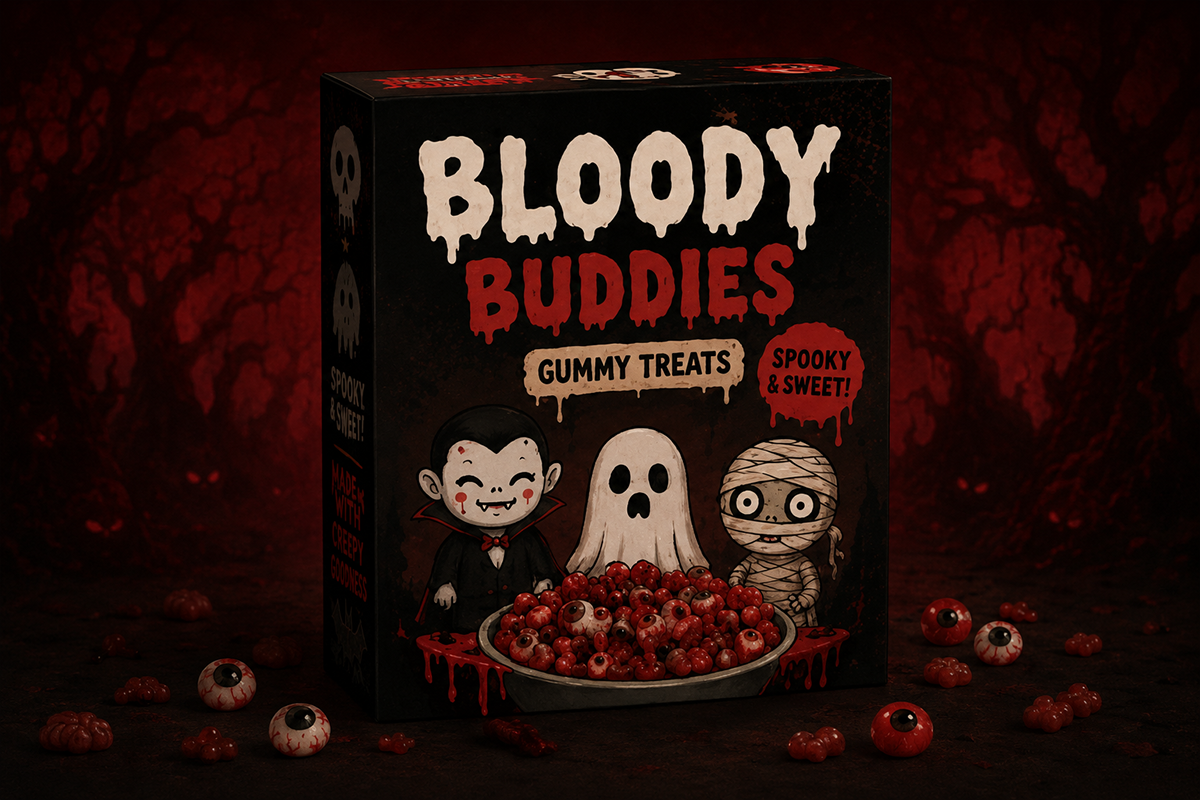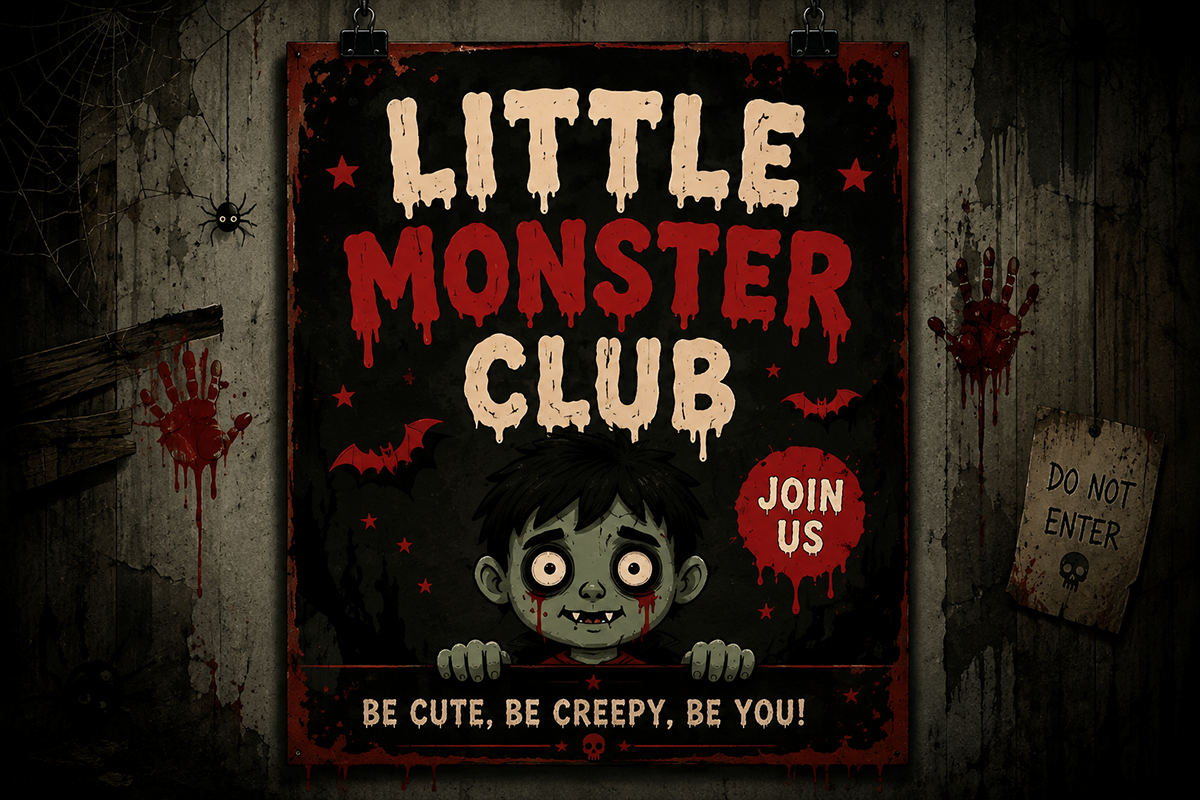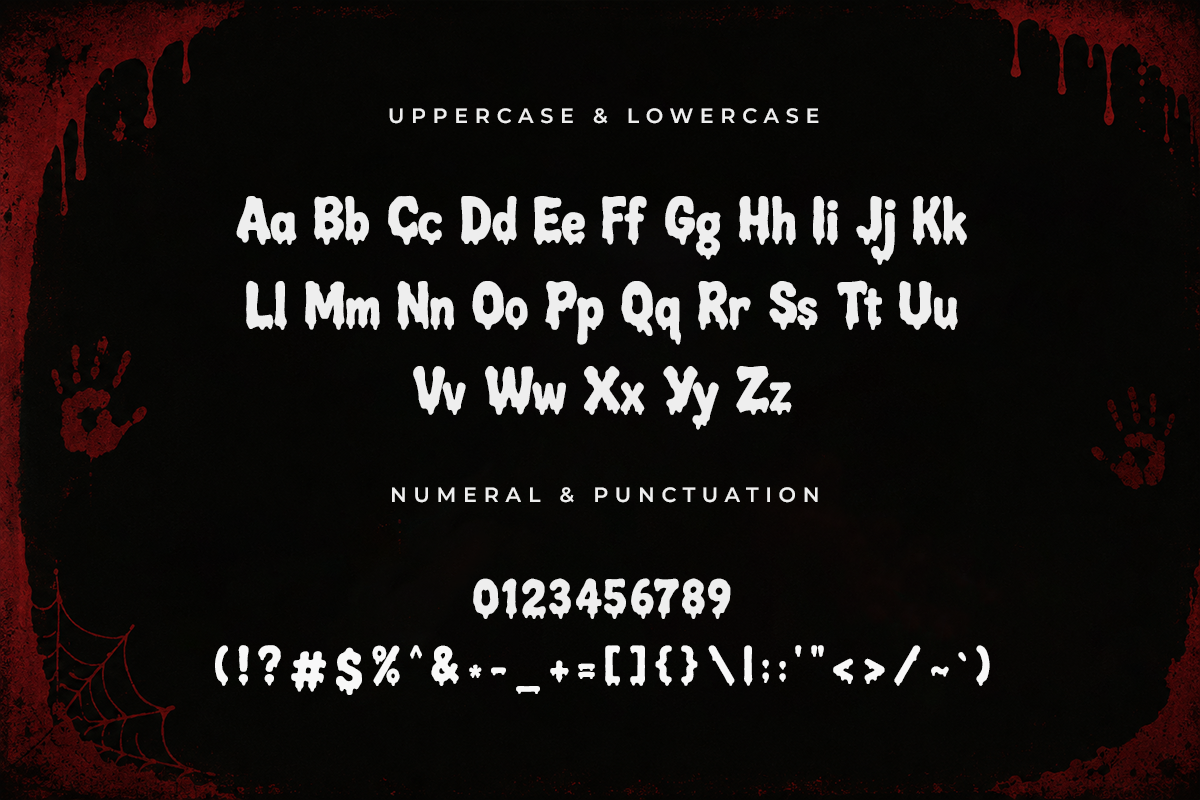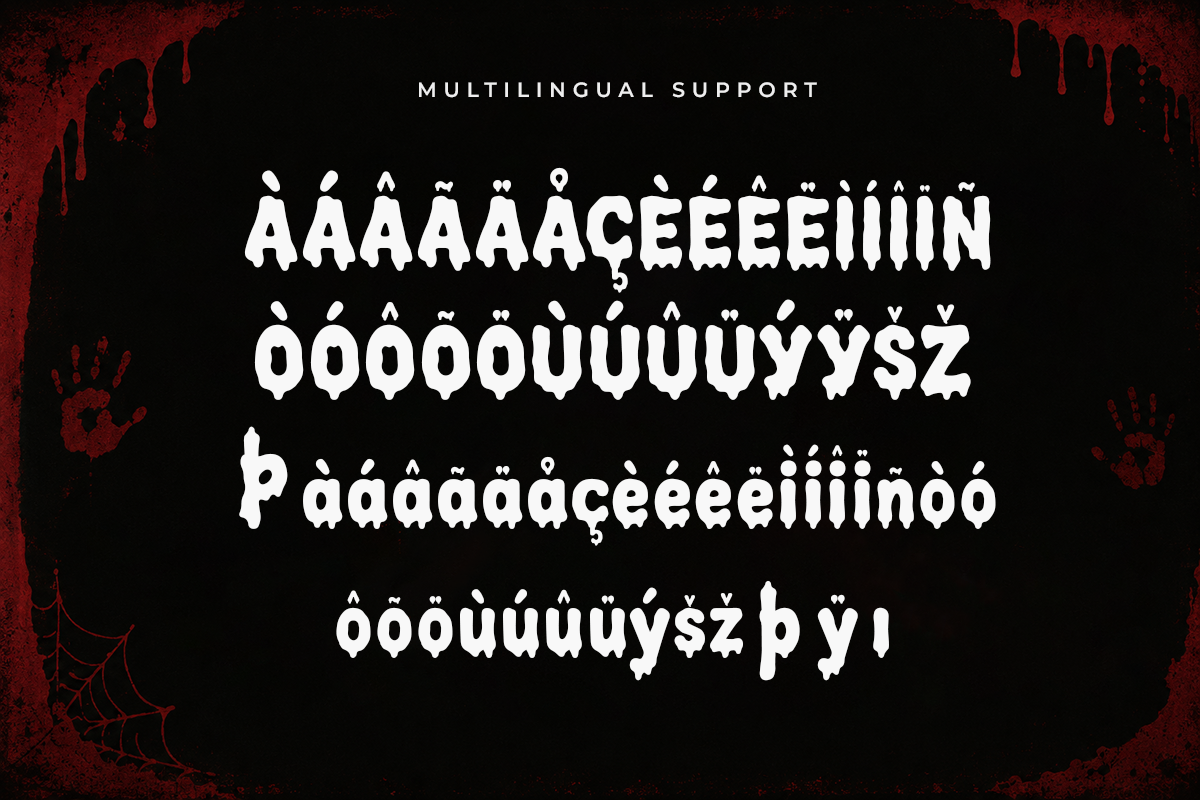
Blood Sauce A Modern Horror Kids Font is a creepy yet playful horror display font designed to bring spooky energy to your creative projects. Featuring bold, chunky letterforms with dripping blood details and an imperfect hand-drawn character, this font creates the perfect balance between scary, fun, and eye-catching.
Its unique horror-inspired style makes Blood Sauce A Modern Horror Kids Font ideal for Halloween designs, horror movie titles, kids’ spooky themes, posters, book covers, game graphics, stickers, merchandise, packaging, invitations, social media posts, and other creative projects that need a bold haunted atmosphere.